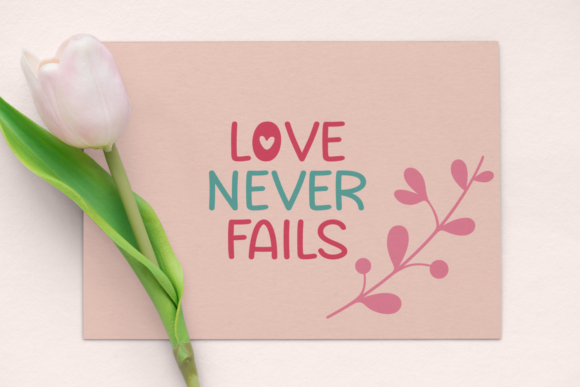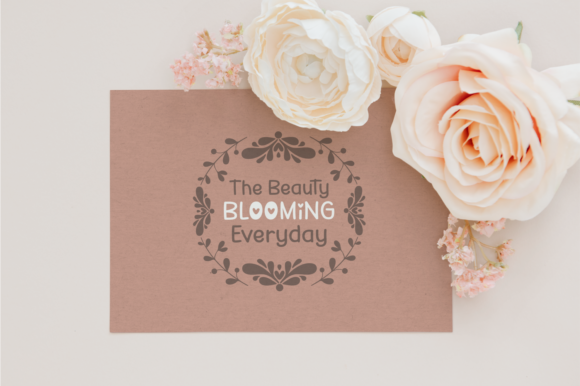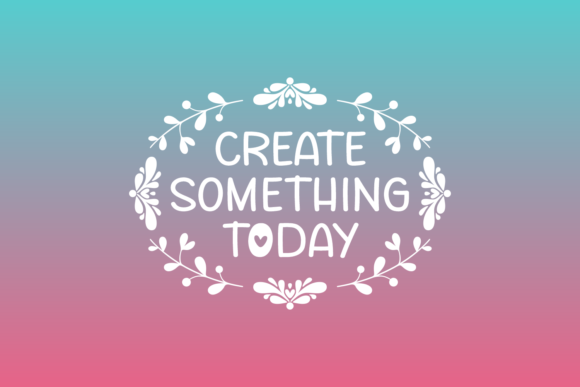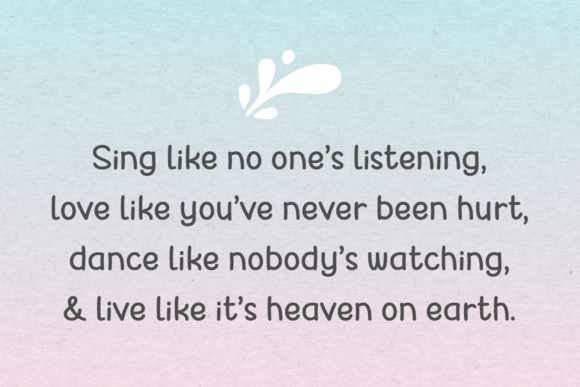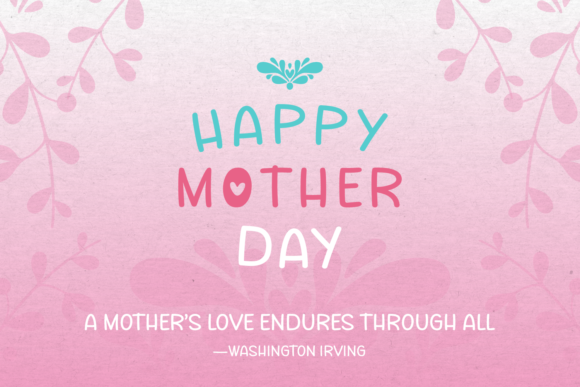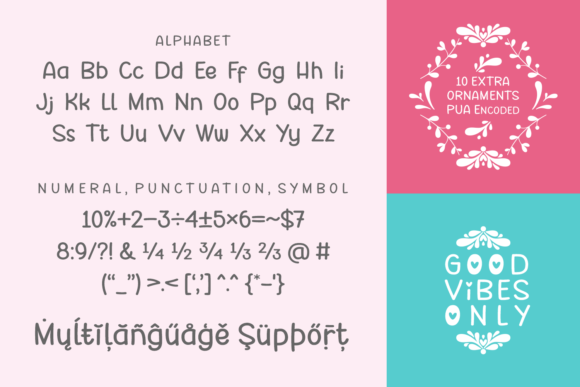
Introduction to Ningst Horizon Font
Who hasn’t scribbled a heartfelt letter to Santa as a child, hoping to catch a glimpse of the jolly old man’s smile? For many of us, that moment of unbridled creativity is a cherished memory. Now, you can relive that magic with the Ningst Horizon Font, a charming handwritten font that captures the essence of childhood innocence.
As a valuable design resource, Ningst Horizon Font offers a unique opportunity for designers to add a touch of whimsy to their creative projects. With its high-quality, transparent background, this font is perfect for creating engaging visuals that stand out from the crowd.
Key Features of Ningst Horizon Font
- High-quality design for creative projects, ideal for use in logos, branding, and other visual identity elements.
- Features a transparent background, allowing for easy integration with various design elements and backgrounds.
- Designed to be scalable, with a resolution of 300 DPI and a size range of 10pt to 1000pt, making it suitable for use in various contexts.
- Unique characteristics include its modern and futuristic aesthetic, with clean lines and a minimalist approach.
- Perfect for designers looking for a versatile and high-quality font to enhance their creative projects.
Honest Review: Ningst Horizon Font
I recently stumbled upon the Ningst Horizon Font, and I must say it’s been a game-changer for my creative projects. This free download has been a reliable design resource, and I’ve been impressed with its high quality.
- ✨ Consistent Quality: The Ningst Horizon Font maintains a consistent quality throughout its various weights and styles, making it perfect for logos, titles, and body text.
- ✨ Transparent Background: The font’s transparent background allows for seamless integration with any design, whether it’s a website, print material, or digital asset.
- ✨ Customization Options: The font’s flexibility in terms of font sizes, colors, and styles makes it an excellent choice for designers who value customization.
However, I do have a few minor complaints:
- ⚠️ Limited Character Set: The Ningst Horizon Font lacks a comprehensive character set, which might be a drawback for designers who frequently use non-English characters.
- ⚠️ Not Suitable for Small Text: The font’s design might not be ideal for small text, as the letters can become difficult to read at very small sizes.
Overall, the Ningst Horizon Font is a fantastic addition to any designer’s toolkit. Its high quality, transparent background, and customization options make it a versatile design resource. While it has some limitations, I highly recommend giving it a try for your next creative project.
Tips for Getting the Most Out of Ningst Horizon Font
For a high-quality look, use the Ningst Horizon Font in conjunction with a transparent background to create a clean and modern design. You can also experiment with different font sizes and styles to add depth and visual interest to your design.
The Ningst Horizon Font is a versatile design resource that can be used in a variety of creative projects, including logos, business cards, and social media graphics. Its high-quality design and transparent background make it an ideal choice for designers looking to create eye-catching and professional-looking designs.
Q: Is the Ningst Horizon Font suitable for use on a transparent background?
Yes, the Ningst Horizon Font features a transparent background, making it ideal for use on backgrounds with images or other design elements. This allows you to create visually appealing and creative designs for your project.